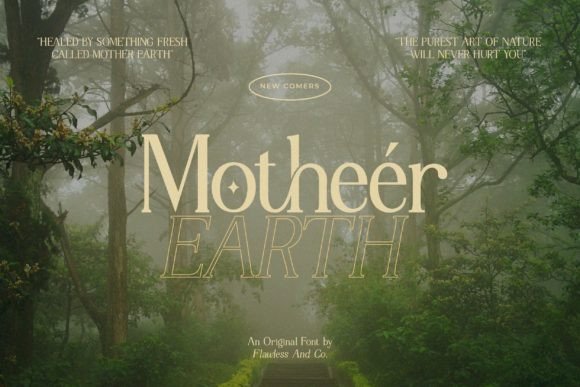
**Motheér Font: The Epitome of Sophisticated Style**
Introducing Motheér Font, a display font that exudes sophistication and modern elegance. Its captivating curves and intricate details will add a touch of timeless allure to your designs, leaving an unforgettable impression on your audience.
Whether you're crafting a captivating logo for your brand, creating stunning invitations for a special occasion, or designing eye-catching social media posts, Motheér Font is the perfect choice to elevate your creations.
**Unleash Your Creativity with Endless Possibilities**
Motheér Font's versatility knows no bounds. Its alluring curves perfectly accentuate curved text, making it ideal for creating logos, branding elements, and designs that require a touch of delicate beauty.
But don't let its graceful curves fool you. Motheér Font also possesses a strong and assertive personality, making it suitable for a wide range of design projects, including invitations, stationery, and wedding designs.
**Immerse Yourself in a World of Elegance and Style**
Imagine the impact your wedding invitations will have as they grace your guests' hands, adorned with the timeless beauty of Motheér Font. Its intricate details will convey the elegance and sophistication of your special day, creating an unforgettable memory.
Envision the power of your brand's logo, etched in the minds of your customers through the captivating curves of Motheér Font. Its unique and memorable design will become synonymous with the excellence and style of your products and services.